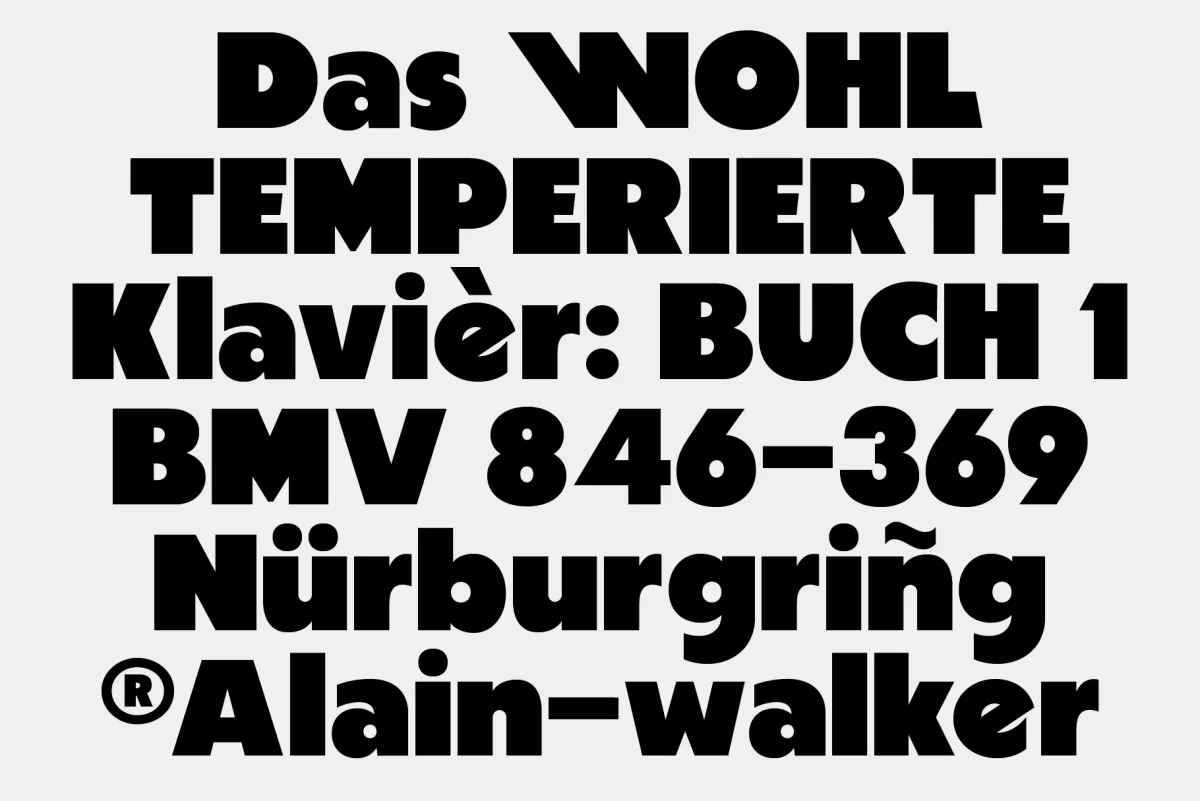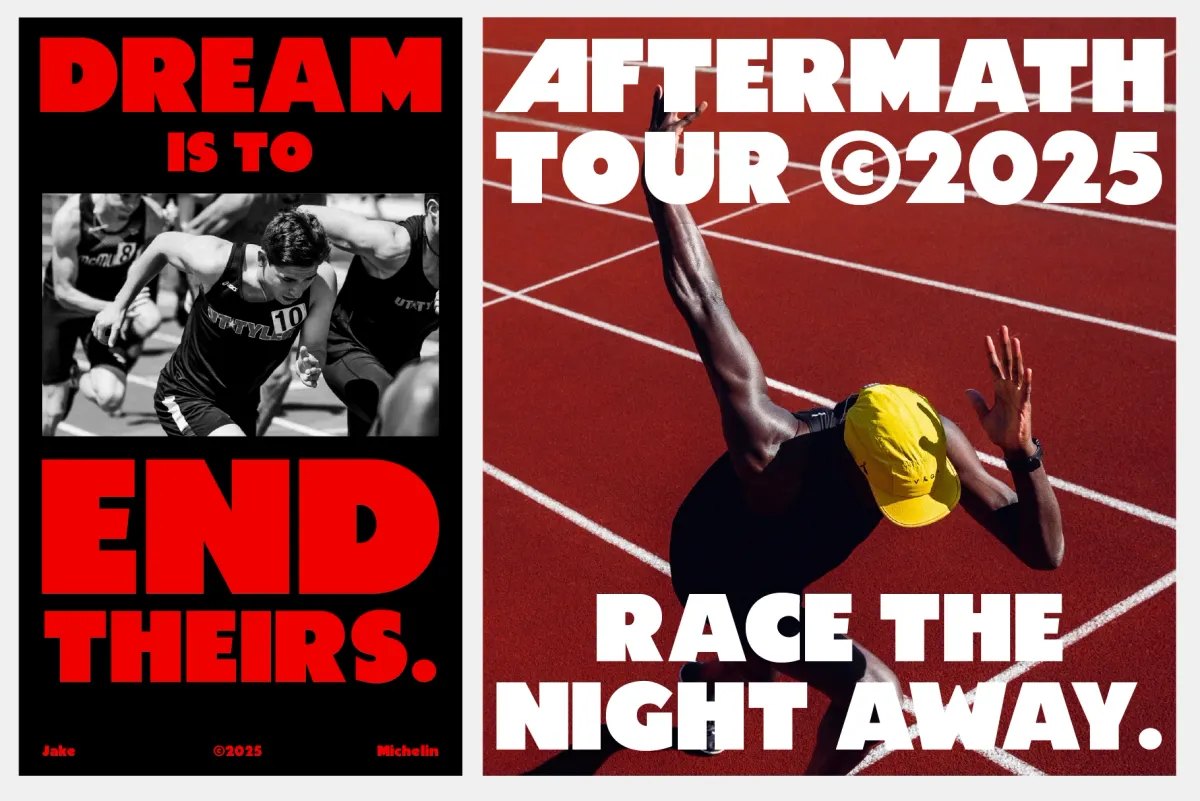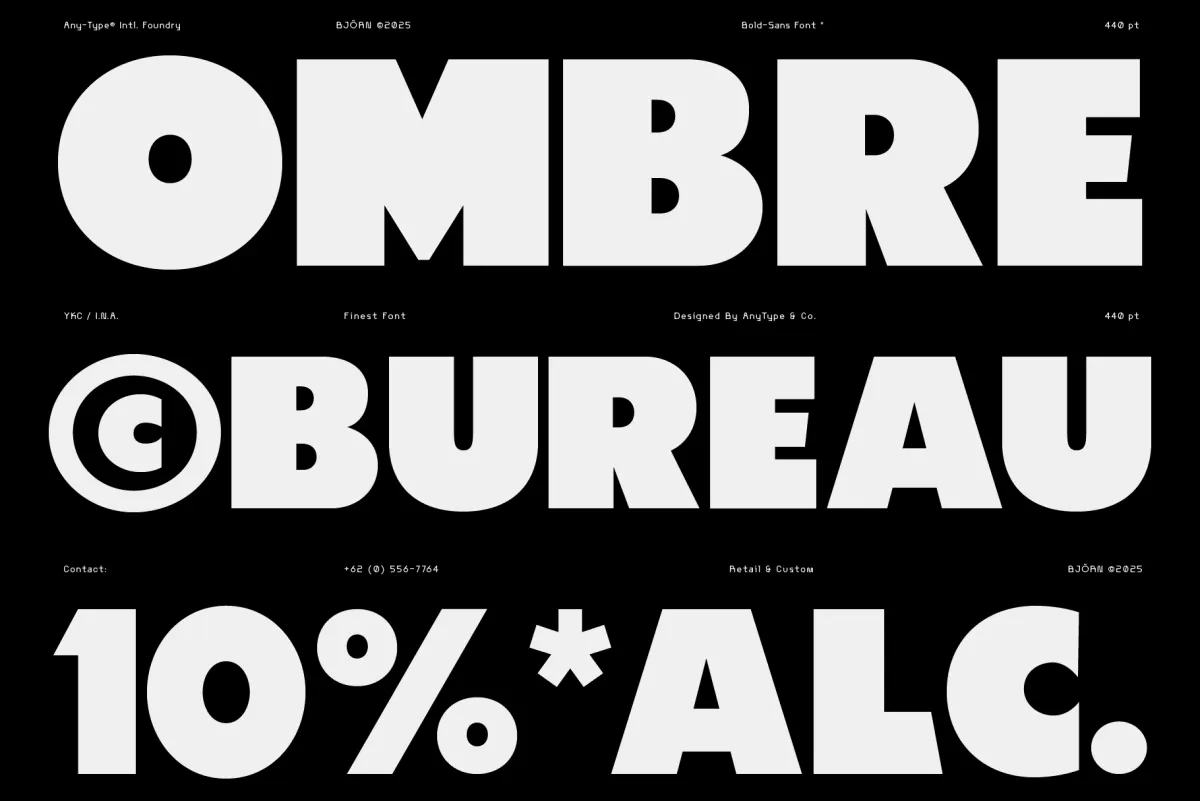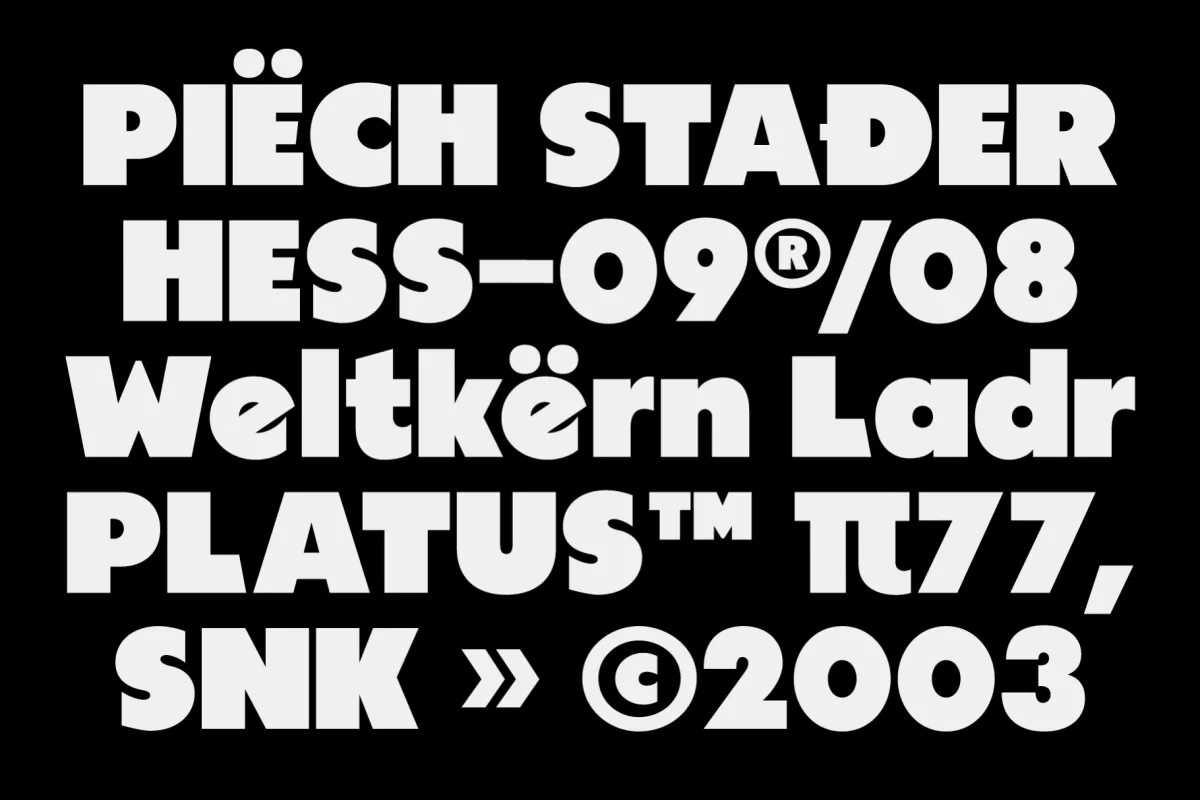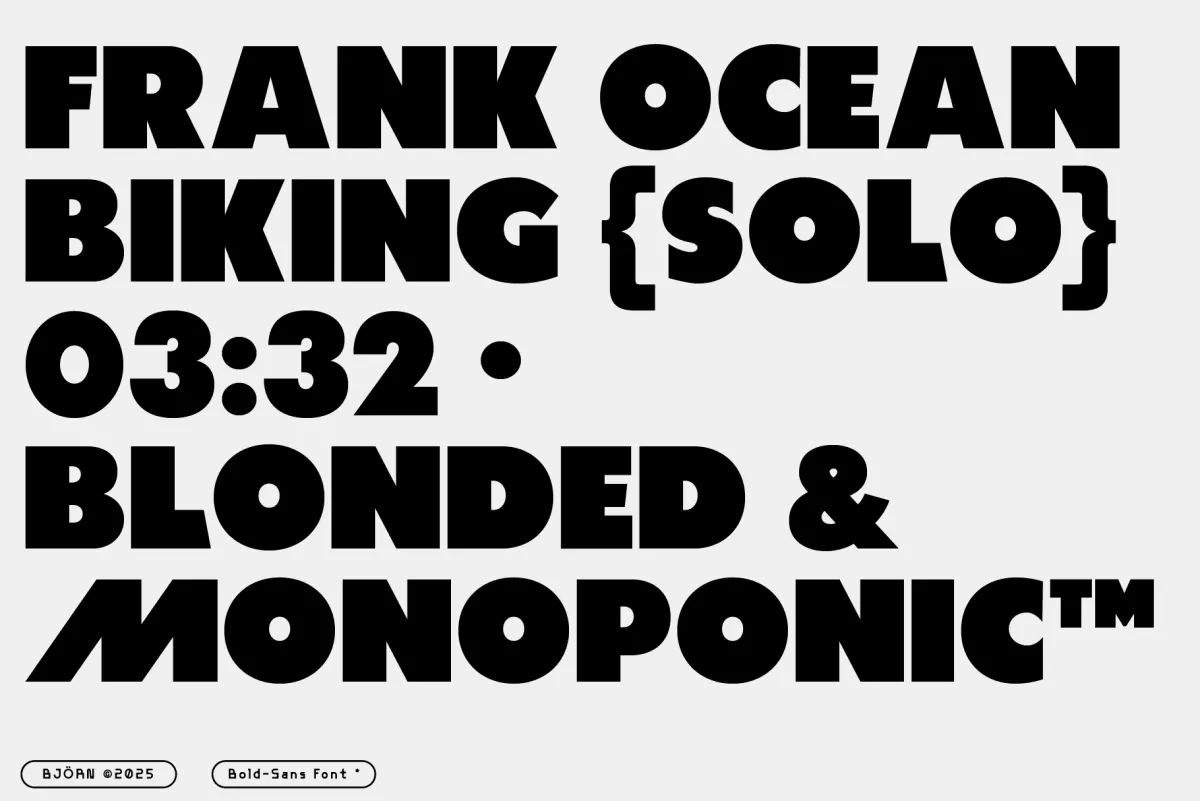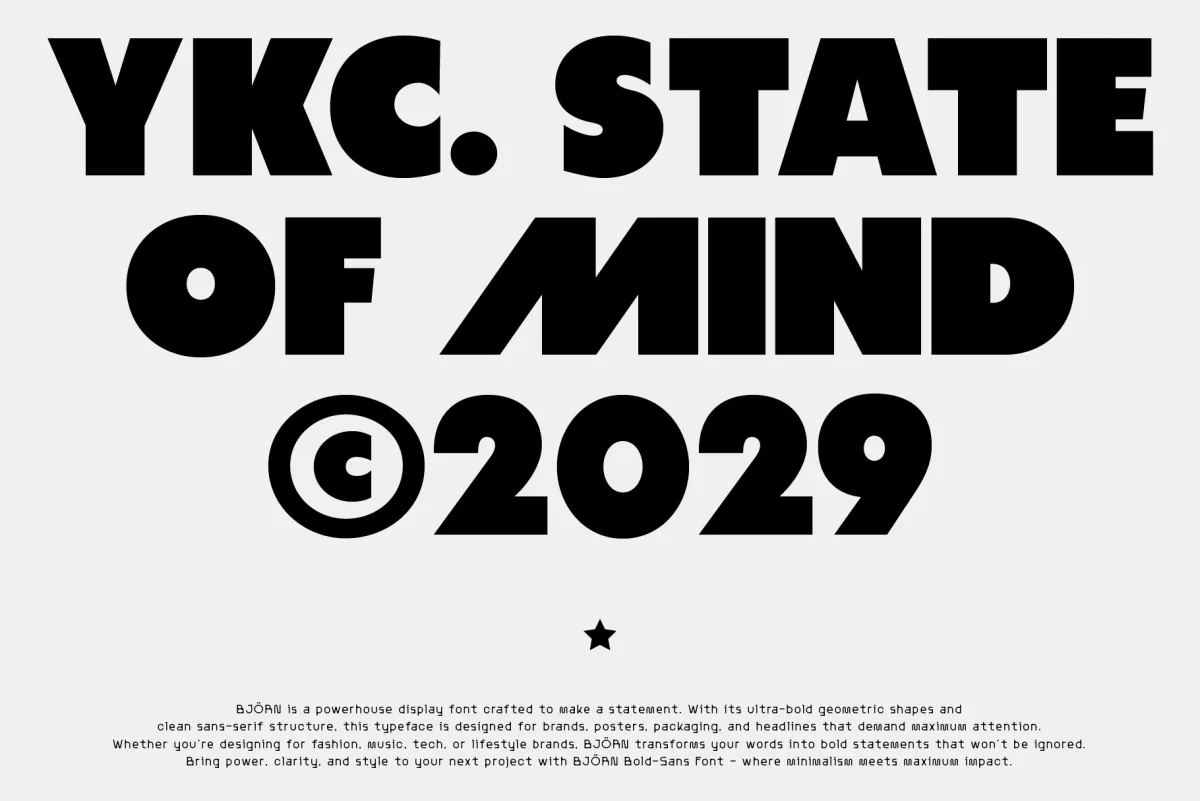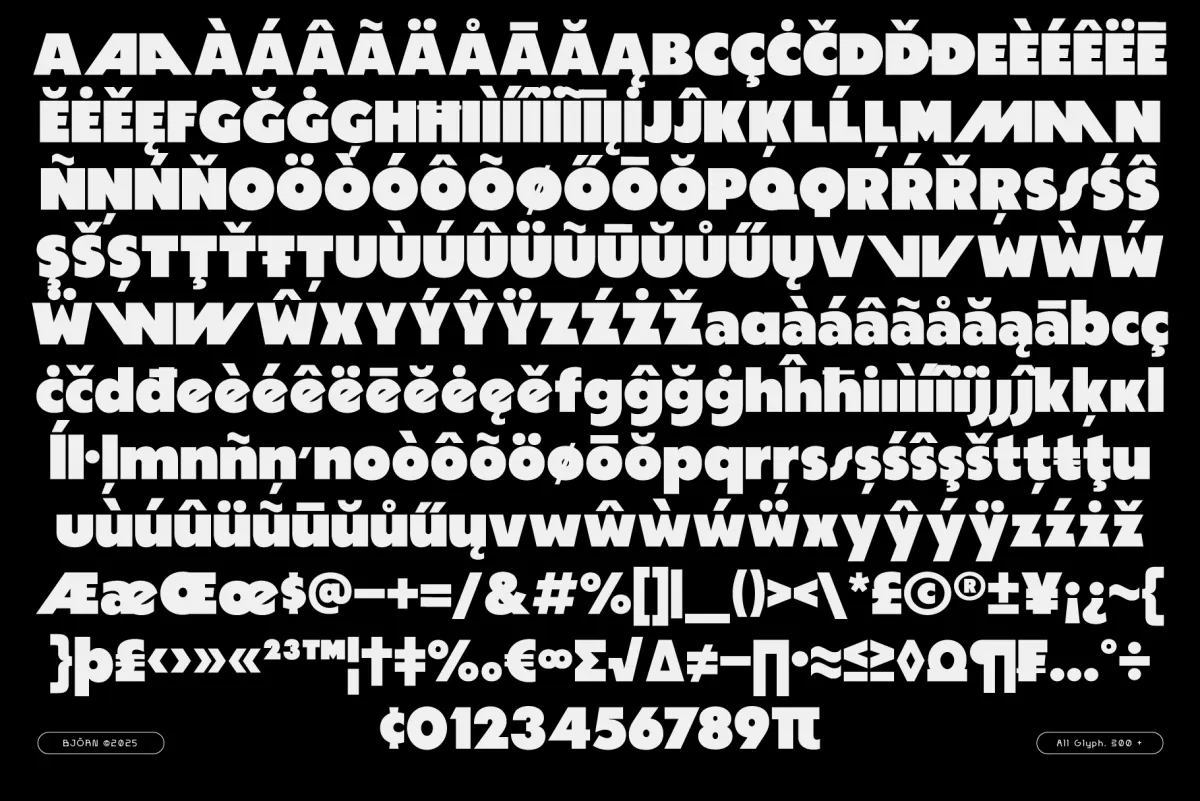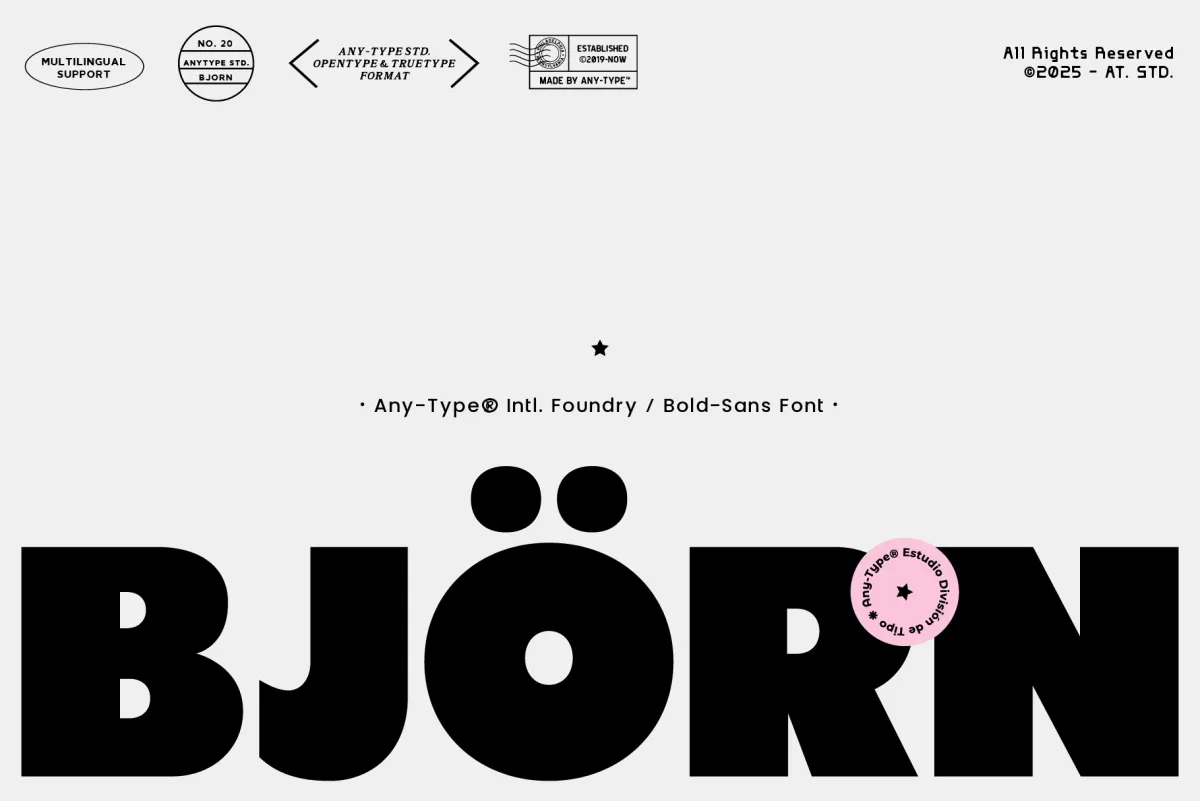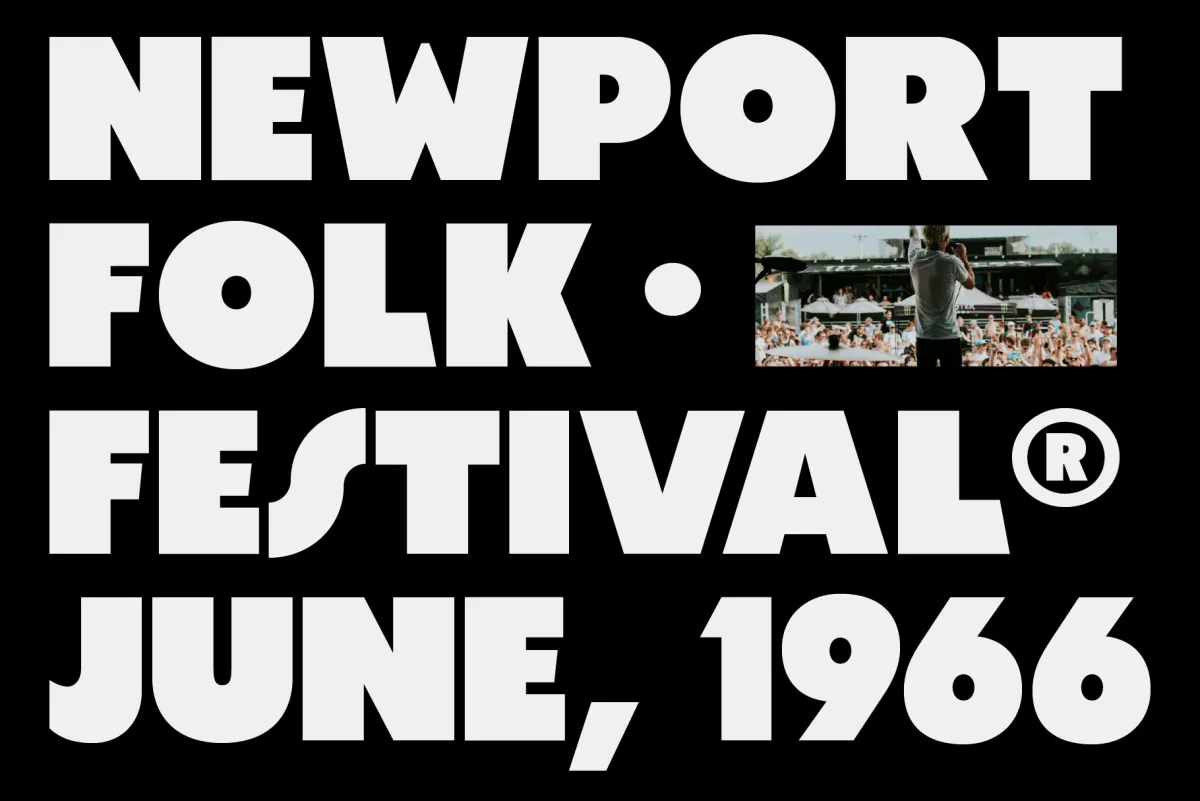
AT BJÖRN — Bold Sans Serif
AT Björn
This heavyweight sans delivers wide-set geometry, ready to land with full visual force. The clean, modular construction gives it clarity at any scale, while the round counterforms and sharp angles balance assertiveness with rhythm.
BJÖRN holds up across editorial mastheads, event flyers, album art, identity systems, wayfinding graphics, campaign headlines, digital banners, and packaging with high contrast layouts. Its character set includes multilingual support and extended symbols, making it a reliable workhorse for both expressive and global projects.